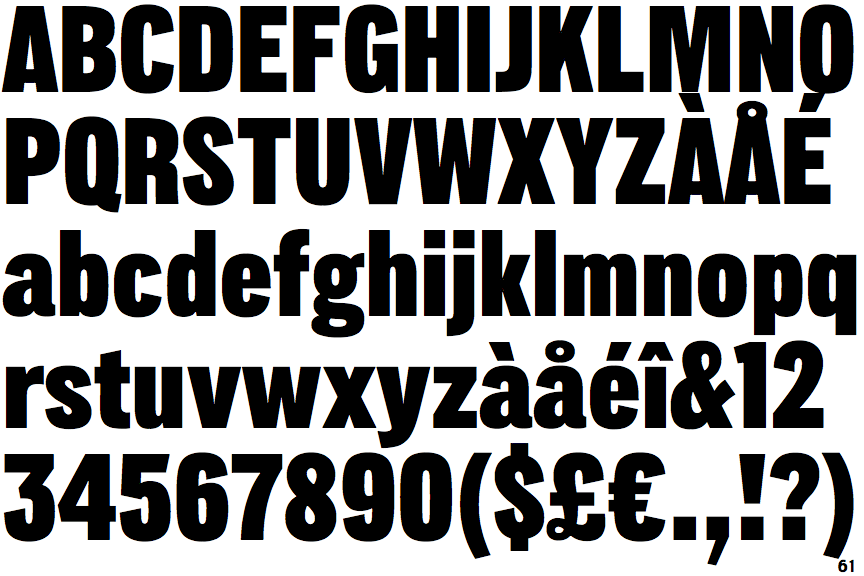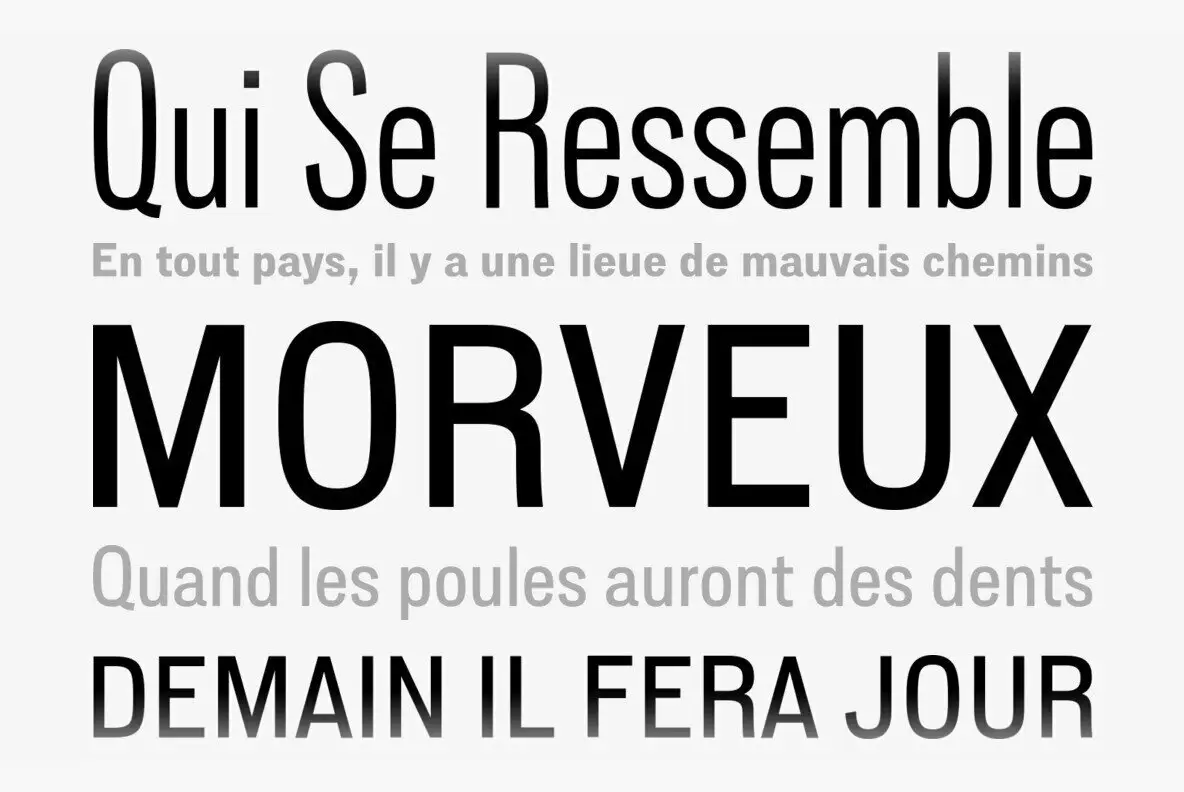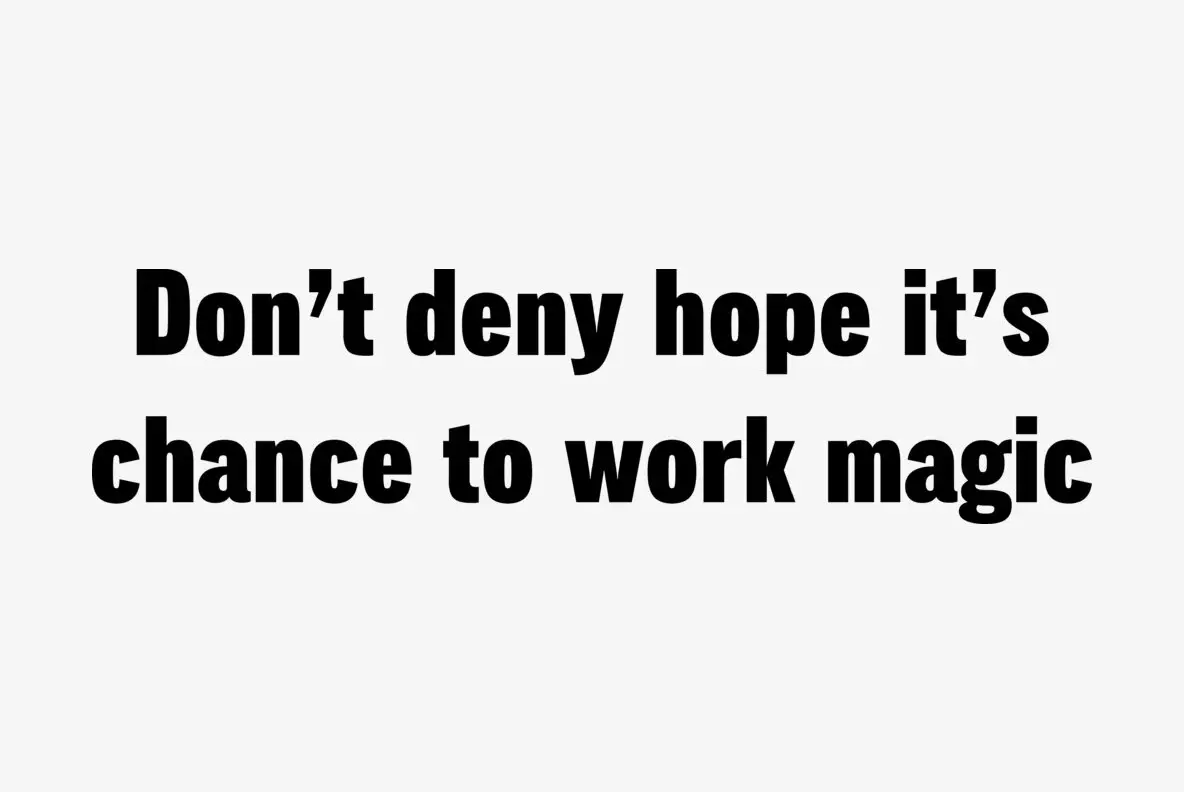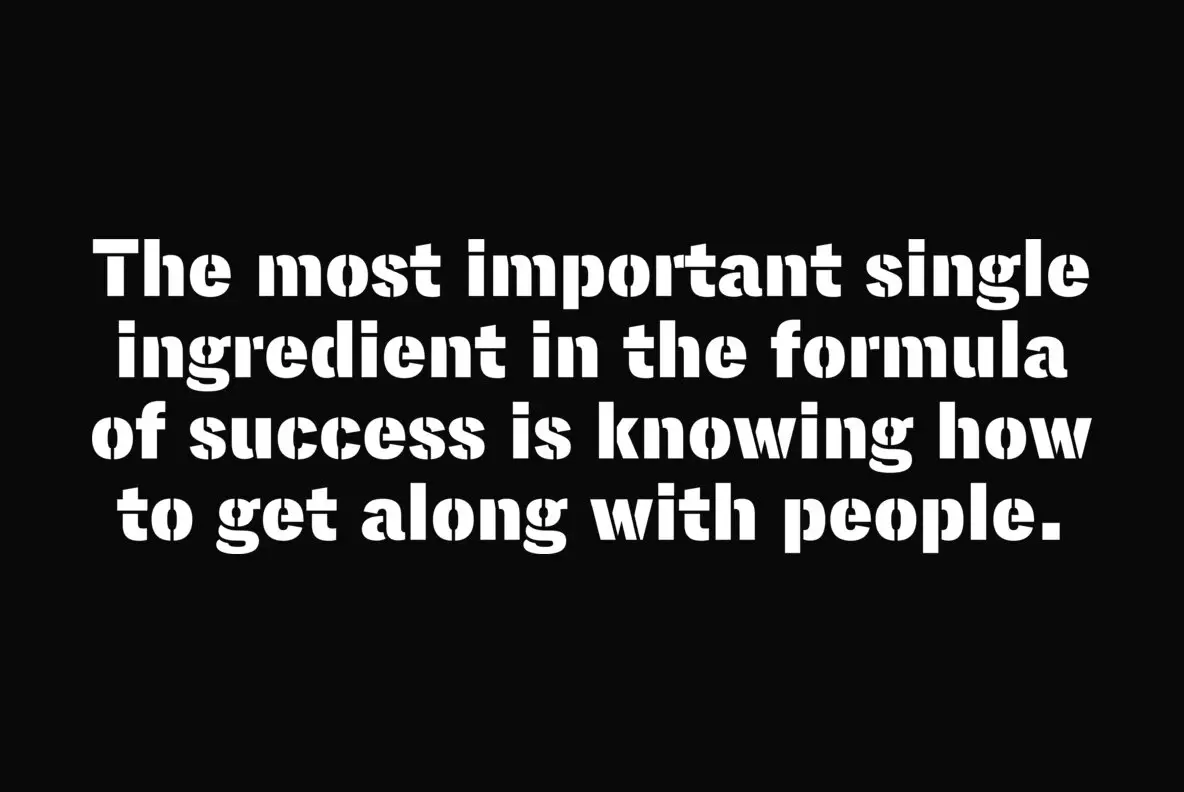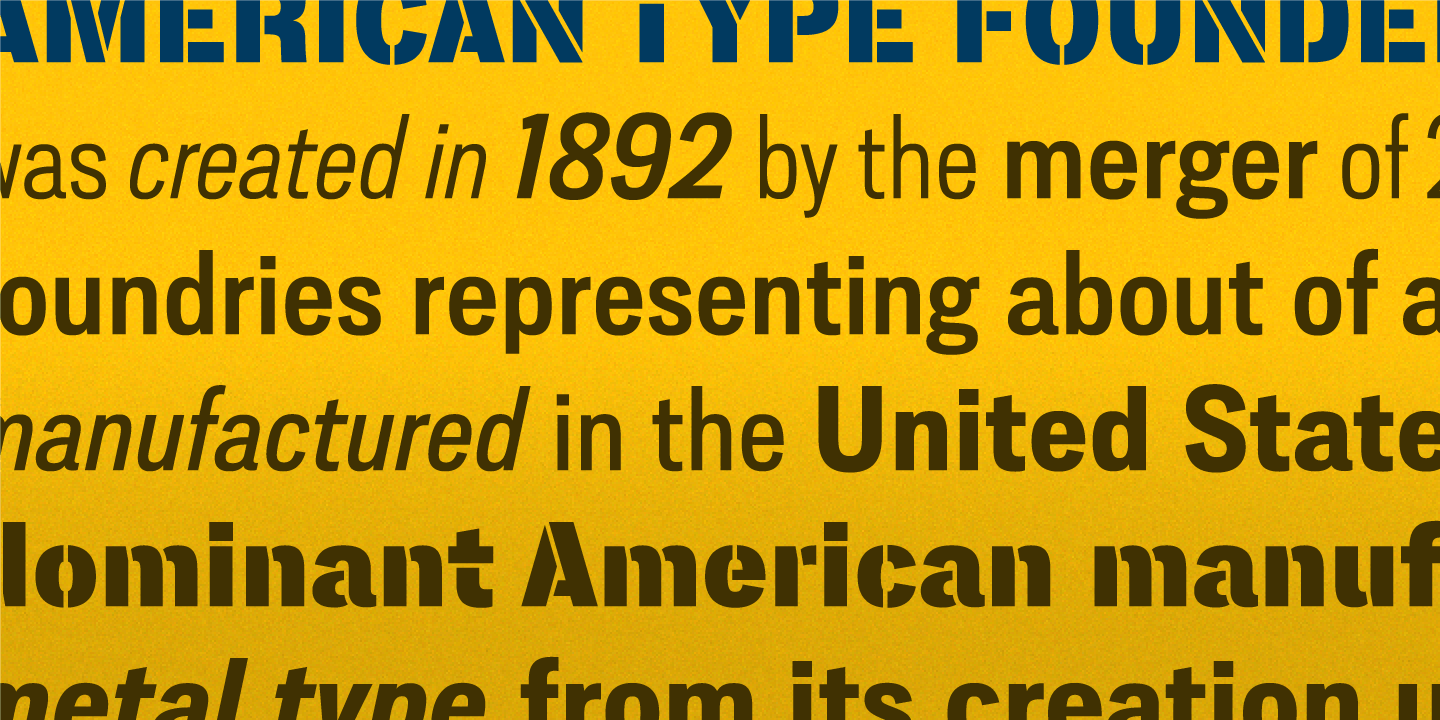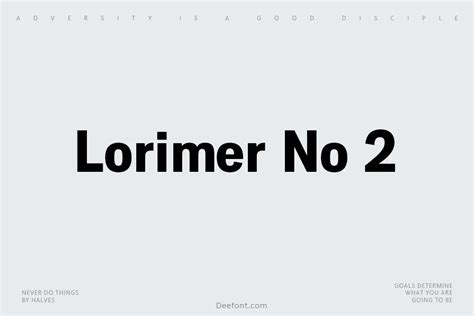
Lorimer No 2 Font . 2 is not one of those 1950s sans serifs that leave personality to the copywriters. 2 better suited to display settings than fonts.
Web lorimer no 2 is a sans family designed for display settings. 2 better suited to display settings than fonts. 2 is not one of those 1950s sans serifs that leave personality to the copywriters.
Lorimer No 2 Stencil Font
2 is not one of those 1950s sans serifs that leave personality to the copywriters. 2 is not one of those 1950s sans serifs that leave personality to the copywriters. Web lorimer no 2 stencil is a free font and part of the lorimer no 2 font family, a sans family designed for display settings. Lorimer no 2 stencil is a free font and part of the lorimer no 2 font family, a sans family designed for display.
Lorimer No 2 Font - 2 is not one of those 1950s sans serifs that leave personality to the copywriters. Web lorimer no 2 is a sans family designed for display settings. Boxy curves, slanted terminals, and a. 2 is not one of those 1950s sans serifs that leave personality to the copywriters. Web lorimer no 2 stencil is a free font and part of.
Lorimer No 2 Font - Web lorimer no 2 stencil is a free font and part of the lorimer no 2 font family, a sans family designed for display settings. Web lorimer no 2 is a sans family designed for display settings. Web lorimer no 2 stencil is a free font and part of the lorimer no 2 font family, a sans family designed for.
Lorimer No 2 Font - Web lorimer no 2 stencil is a free font and part of the lorimer no 2 font family, a sans family designed for display settings. Web lorimer no 2 stencil is a free font and part of the lorimer no 2 font family, a sans family designed for display settings. 2 is not one of those 1950s sans serifs that.
Lorimer No 2 Font - Boxy curves, slanted terminals, and a. Web lorimer no 2 is a sans family designed for display settings. 2 is not one of those 1950s sans serifs that leave personality to the copywriters. Web lorimer no 2 stencil is a free font and part of the lorimer no 2 font family, a sans family designed for display settings. Lorimer no.
Lorimer No 2 Font - Boxy curves, slanted terminals, and a. 2 better suited to display settings than fonts. Web lorimer no 2 is a sans family designed for display settings. Web lorimer no 2 is a sans family designed for display settings. 2 is not one of those 1950s sans serifs that leave personality to the copywriters.
Lorimer No 2 Font - Lorimer no 2 stencil is a free font and part of the lorimer no 2 font family, a sans family designed for display. Web lorimer no 2 font. Web lorimer no 2 is a sans family designed for display settings. Boxy curves, slanted terminals, and a. 2 is not one of those 1950s sans serifs that leave personality to the.
Lorimer No 2 Font - Web lorimer no 2 is a sans family designed for display settings. 2 is not one of those 1950s sans serifs that leave personality to the copywriters. Web lorimer no 2 font. 2 is not one of those 1950s sans serifs that leave personality to the copywriters. Lorimer no 2 stencil is a free font and part of the lorimer.
Lorimer No 2 Font - Lorimer no 2 stencil is a free font and part of the lorimer no 2 font family, a sans family designed for display. Boxy curves, slanted terminals, and a. 2 better suited to display settings than fonts. Web lorimer no 2 font. Web lorimer no 2 is a sans family designed for display settings.
Lorimer No 2 Font - Web lorimer no 2 font. Web lorimer no 2 is a sans family designed for display settings. Web lorimer no 2 stencil is a free font and part of the lorimer no 2 font family, a sans family designed for display settings. 2 is not one of those 1950s sans serifs that leave personality to the copywriters. Boxy curves, slanted.
Lorimer No 2 Font - Lorimer no 2 stencil is a free font and part of the lorimer no 2 font family, a sans family designed for display. 2 is not one of those 1950s sans serifs that leave personality to the copywriters. Web lorimer no 2 is a sans family designed for display settings. Boxy curves, slanted terminals, and a. 2 better suited to.
Lorimer No 2 Font - Lorimer no 2 stencil is a free font and part of the lorimer no 2 font family, a sans family designed for display. Boxy curves, slanted terminals, and a. Web lorimer no 2 stencil is a free font and part of the lorimer no 2 font family, a sans family designed for display settings. Web lorimer no 2 is a.
Lorimer No 2 Font - Web lorimer no 2 font. Web lorimer no 2 stencil is a free font and part of the lorimer no 2 font family, a sans family designed for display settings. Lorimer no 2 stencil is a free font and part of the lorimer no 2 font family, a sans family designed for display. Web lorimer no 2 is a sans.
Lorimer No 2 Font - Web lorimer no 2 font. 2 is not one of those 1950s sans serifs that leave personality to the copywriters. Web lorimer no 2 is a sans family designed for display settings. 2 better suited to display settings than fonts. 2 is not one of those 1950s sans serifs that leave personality to the copywriters.
Lorimer No 2 Font - Web lorimer no 2 font. 2 better suited to display settings than fonts. Boxy curves, slanted terminals, and a. Web lorimer no 2 stencil is a free font and part of the lorimer no 2 font family, a sans family designed for display settings. Web lorimer no 2 is a sans family designed for display settings.